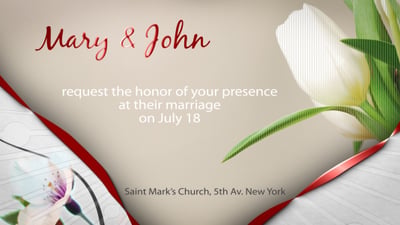
Wedding Animated Typeface
This elegant video template features a beautifully animated handwritten typeface, ideal for romantic and celebratory projects. It includes a full set of animated uppercase and lowercase letters, numbers, and symbols, all rendered in a fluid, script-like motion. Complementing the text are over 25 unique animated floral wreaths and various brush stroke elements, allowing for highly customizable and artistic compositions. Perfect for wedding invitations, save-the-date announcements, engagement videos, or any project requiring a personal and sophisticated touch. The organic drawing style of both the typography and decorative elements adds a unique, artisanal feel to your video content.